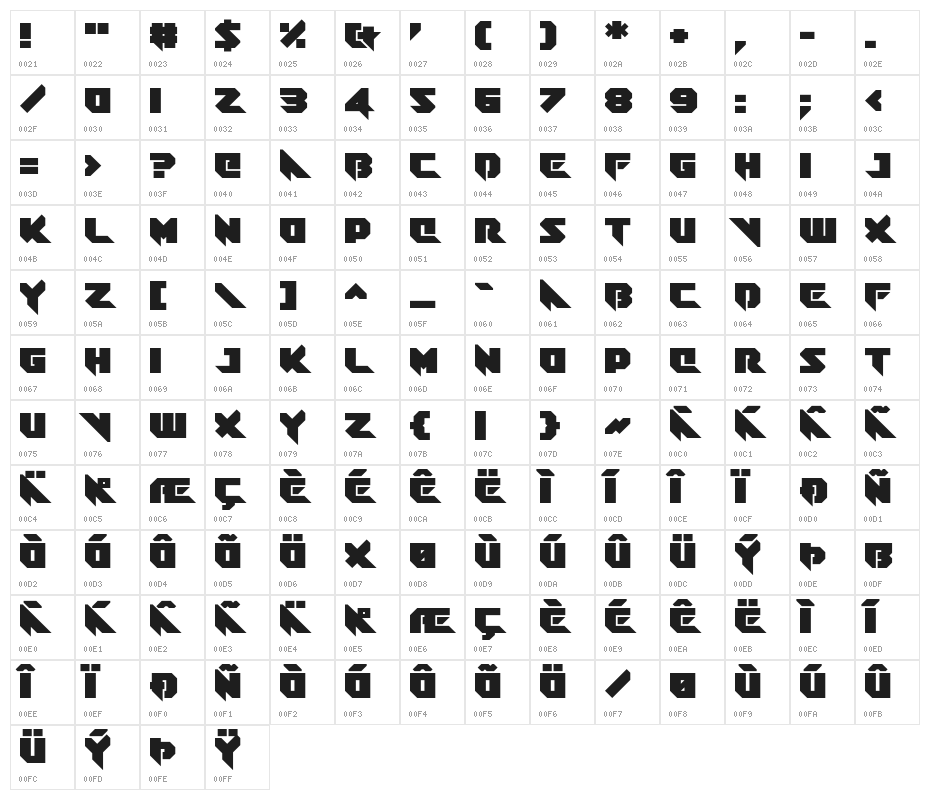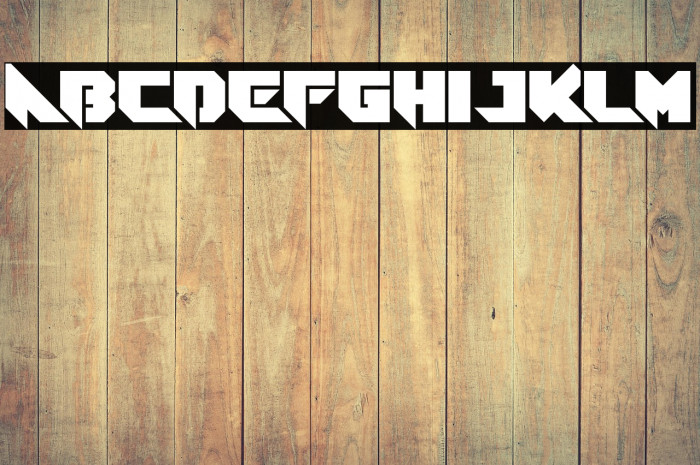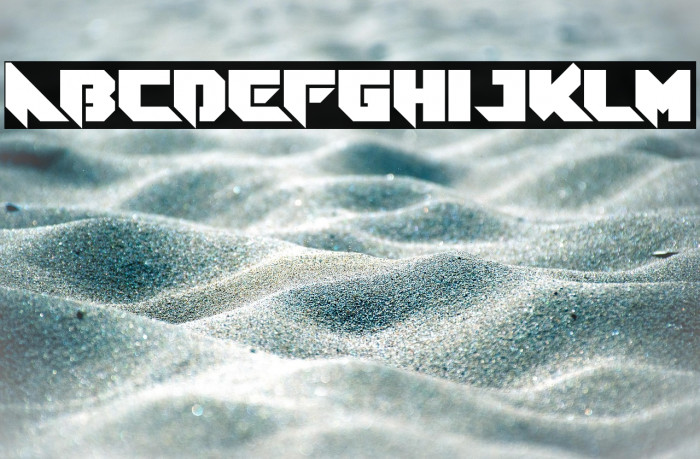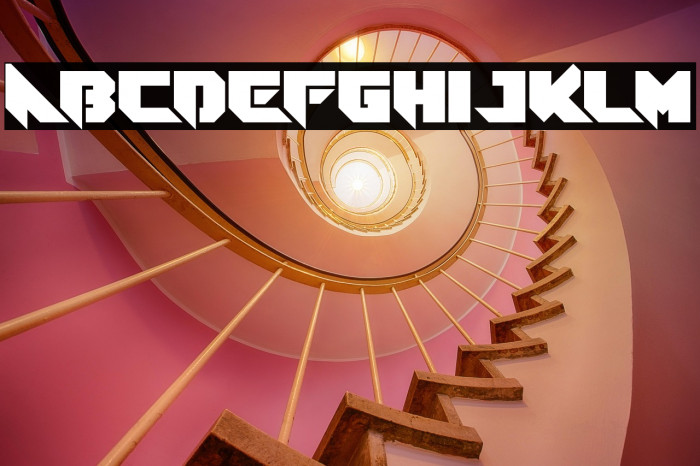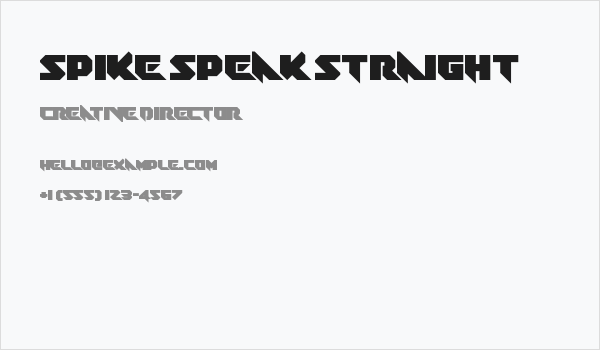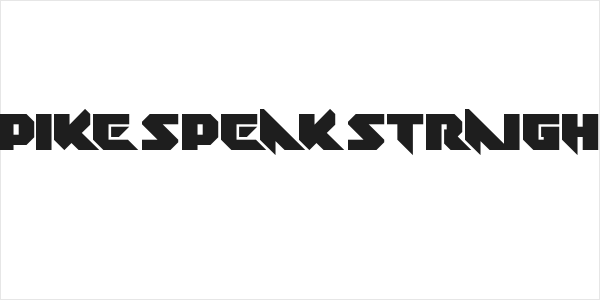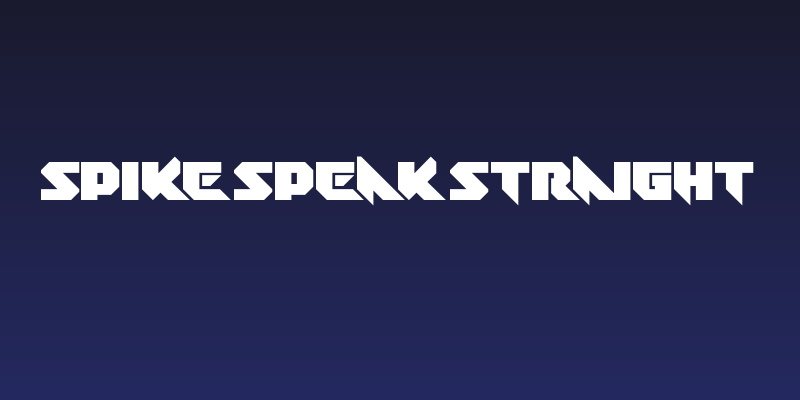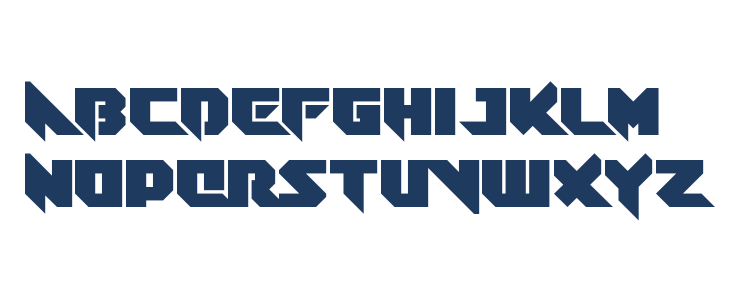
Spike Speak Straight Font
Spike Speak Straight Description
This font features a bold, angular design with sharp edges and geometric shapes. Each character is constructed with a series of straight lines and pointed corners, giving it a futuristic and aggressive appearance. The uppercase and lowercase letters maintain a consistent style, with the lowercase mirroring the uppercase in form and structure. Numbers and special characters follow the same design principles, ensuring uniformity across all elements. The font's distinct style makes it highly suitable for attention-grabbing headlines and logos, where a strong visual impact is desired. Its unique aesthetic is reminiscent of digital or sci-fi themes, making it ideal for projects that require a modern and edgy look.
| Overall Style | Futuristic, Modern |
| Proposed Projects | Ideal for sci-fi themed projects, video game titles, tech company logos, and modern posters. |